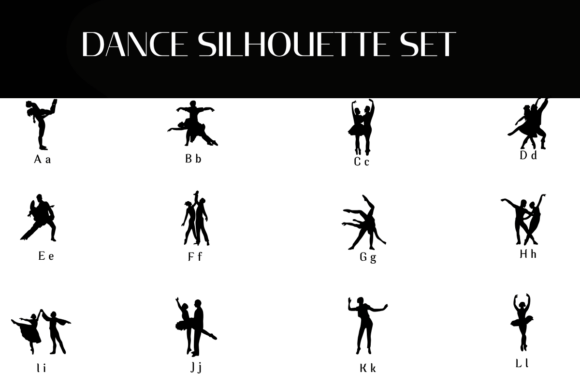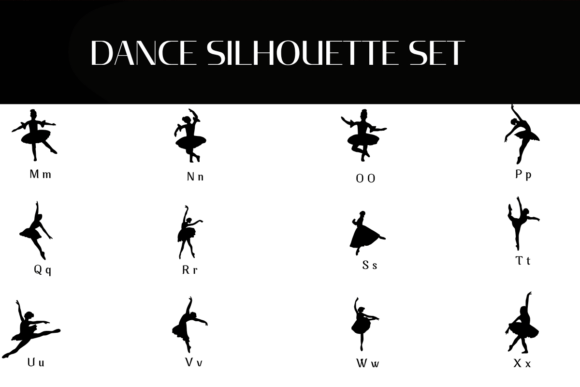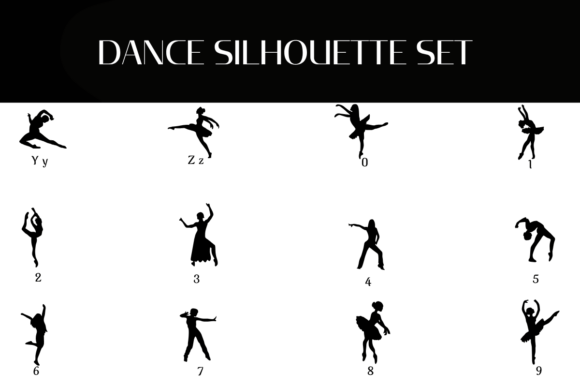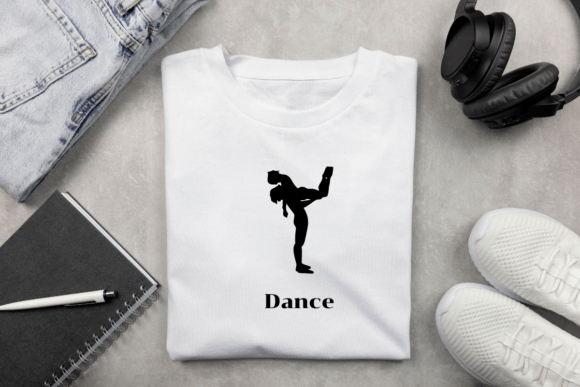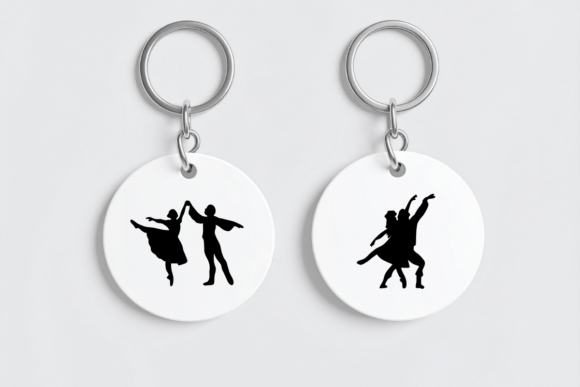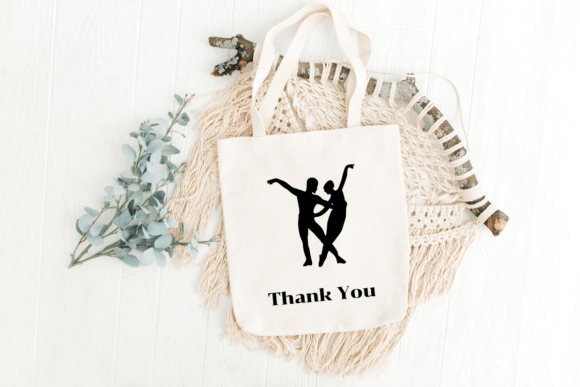
Dance Silhouette Set: A Dingbats Font
Capture the essence of movement and elegance with the Dance Silhouette Set, a unique dingbats font that brings the beauty of dance to your visual projects. This comprehensive collection features a wide range of professionally crafted silhouettes that embody the spirit of various dance styles, from classical ballet to contemporary and ballroom dance.
Unleash the Power of Visual Storytelling
The Dance Silhouette Set is more than just a font – it’s a tool for instant visual storytelling. Each icon in the set is meticulously designed to convey the dynamism and grace of dance, allowing you to communicate your message with clarity and style. Whether you’re creating posters for a performing arts event, branding materials for a dance studio, or digital content for a theatrical production, this font is the perfect choice.
Key Features of the Dance Silhouette Set
- Professionally Crafted Silhouettes: Each icon in the Dance Silhouette Set is carefully designed to capture the essence of various dance styles, ensuring that your visual projects look polished and professional.
- Diverse Array of Designs: From classical ballet to contemporary and ballroom dance, the font features a wide range of silhouettes that cater to different tastes and preferences.
- Clean and Expressive Lines: The silhouettes are rendered with clean, expressive lines that convey the dynamism and energy of dance, making them perfect for visual projects that require a touch of elegance.
- Ease of Use: As a dingbats font, the Dance Silhouette Set is easy to use and can be integrated seamlessly into your design workflow.
Applications of the Dance Silhouette Set
The Dance Silhouette Set is a versatile font that can be used in a variety of applications, including:
- Performing Arts Event Posters: Create eye-catching posters for dance performances, concerts, and theatrical productions.
- Dance Studio Branding: Develop a strong brand identity for your dance studio with custom logos, business cards, and brochures.
- Theatrical Programs: Design elegant programs for theatrical productions, including dance performances and musicals.
- Digital Content: Create engaging digital content, such as social media graphics, blog posts, and website headers, that showcase your dance troupe’s personality and style.
- Choreography Guides: Illustrate choreography guides with custom silhouettes that help dancers learn and perfect their moves.
Why Choose the Dance Silhouette Set?
In a world where visual communication is key, the Dance Silhouette Set stands out as a unique and powerful tool for designers and crafters. Here are just a few reasons why you should choose this font for your next project:
- Unique and Exclusive: The Dance Silhouette Set is a one-of-a-kind font that will set your visual projects apart from the rest.
- Time-Saving: With a comprehensive collection of professionally crafted silhouettes, you can save time and effort in your design workflow.
- High-Quality Designs: Each icon in the font is designed with precision and attention to detail, ensuring that your visual projects look professional and polished.
The Dance Silhouette Set is a dingbats font that captures the essence of dance and movement, making it a perfect choice for designers and crafters who want to add a touch of elegance and sophistication to their visual projects. With its comprehensive collection of professionally crafted silhouettes, clean and expressive lines, and ease of use, this font is sure to become a staple in your design workflow. Whether you’re creating posters, branding materials, or digital content, the Dance Silhouette Set is the perfect tool for instant visual storytelling.